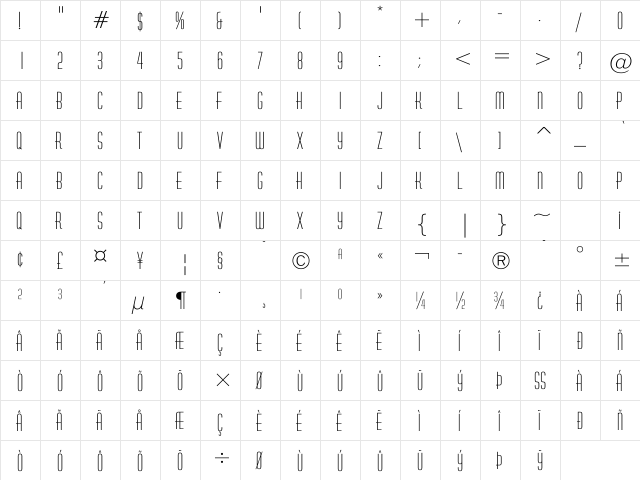
Sharp Pencil Regular
Design Context for Sharp Pencil Typeface
Sharp Pencil is a composed and adaptable typeface that performs quietly and consistently across a wide range of design contexts.